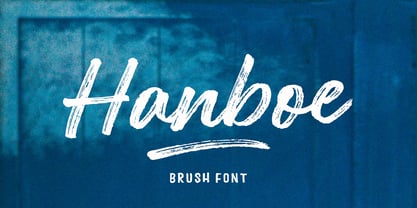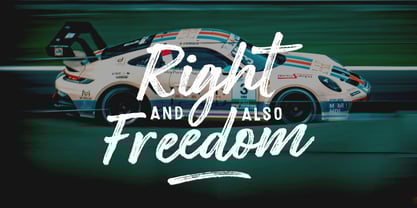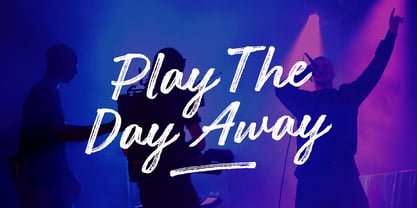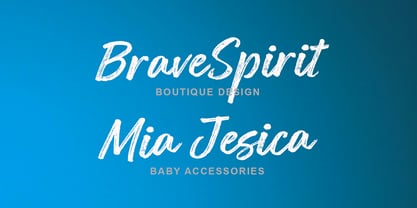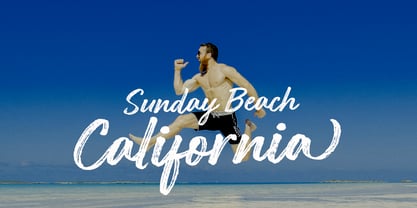
Hanboe Brush
par Stripes Studio
La famille de polices Hanboe Brush a été conçue par Yur Lis et publiée par Stripes Studio. Hanboe Brush contient 2 styles et options de package familial.
Hanboe Brush a new font that is brushed is very attractive with a natural, detailed and perfect texture, also has an additional Hanboe Brush Underlines.
Perfect for brand projects, logos, product packaging, posters, invitations, greeting cards, news, blogs, everything including personal charm etc.